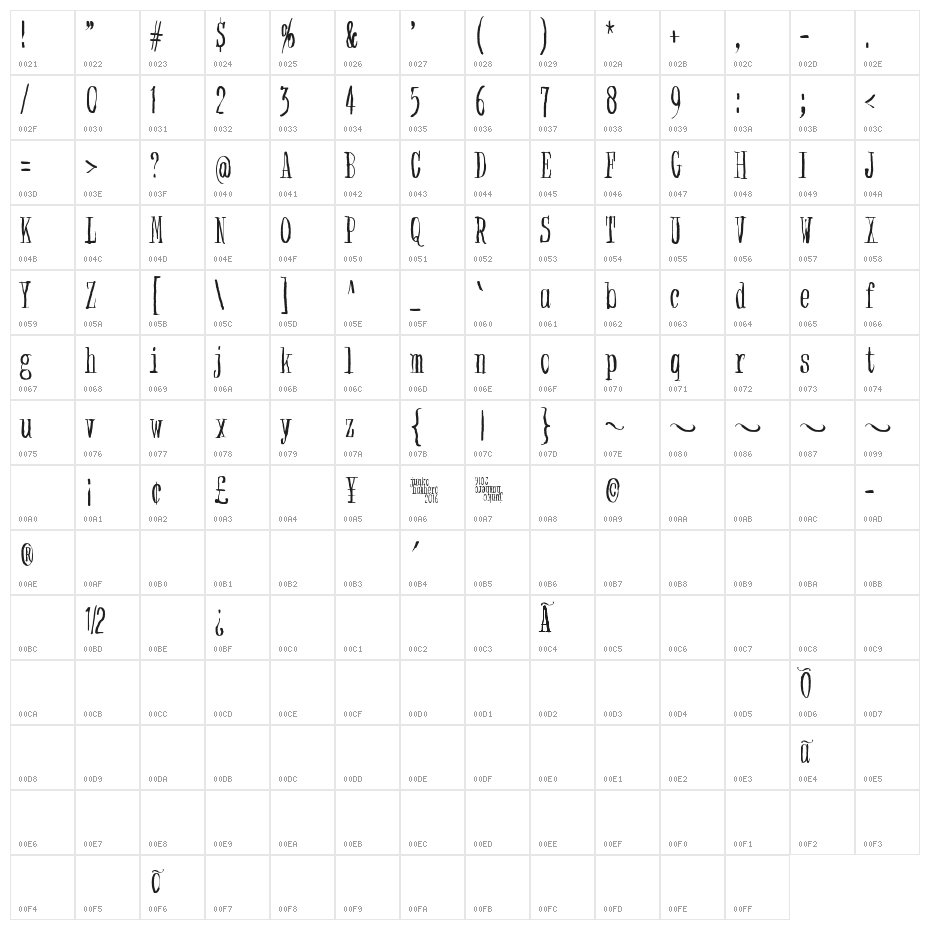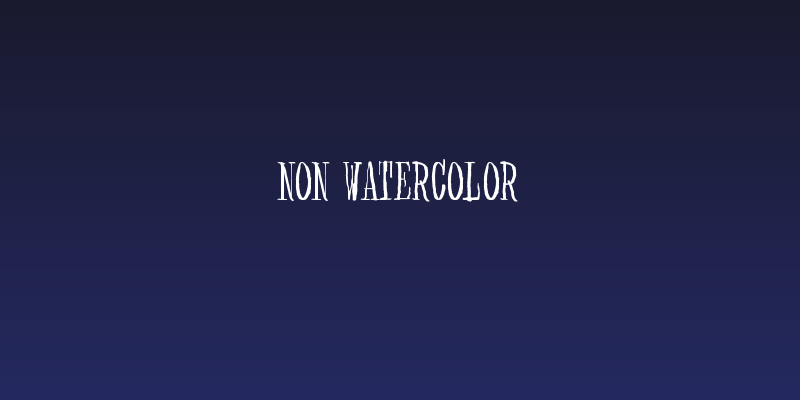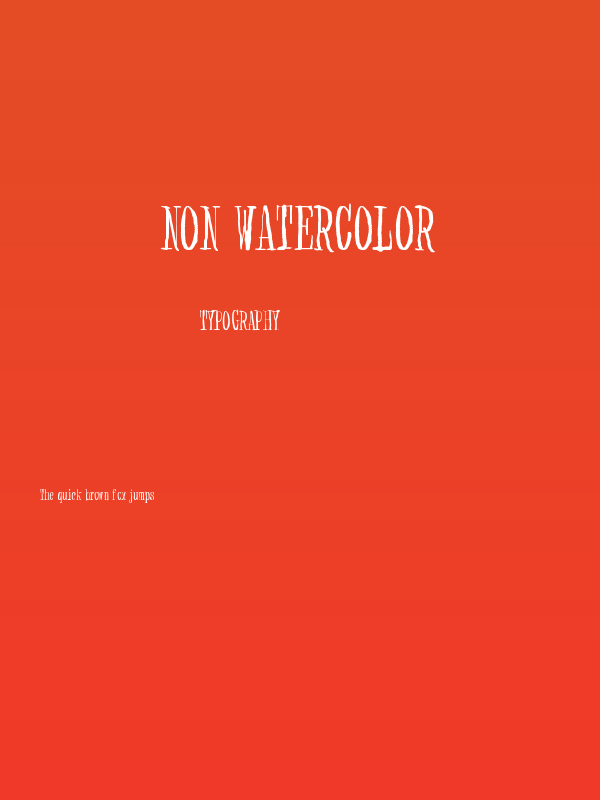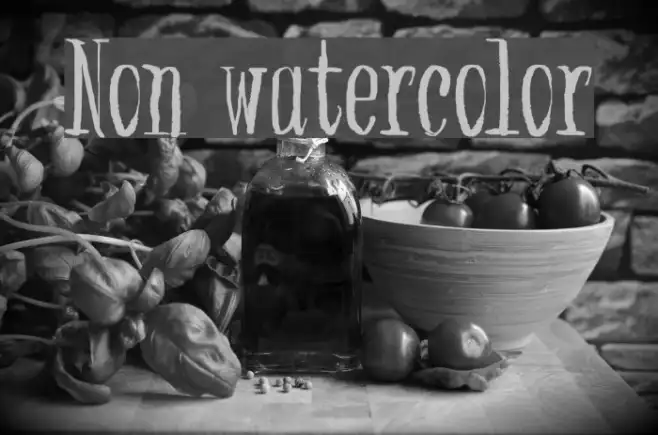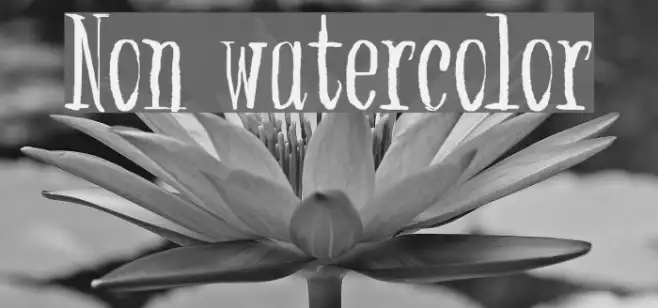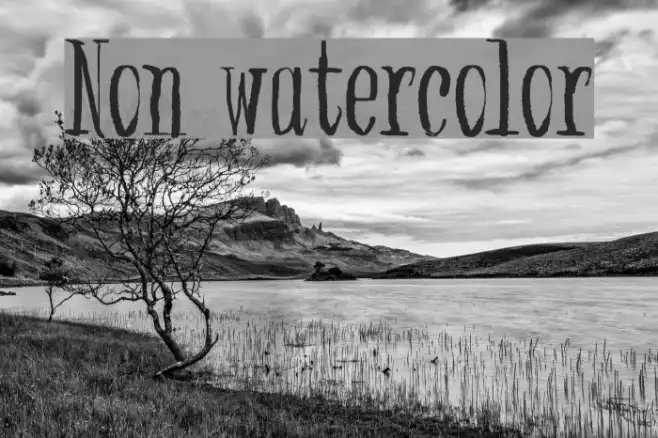
Non watercolor Font
Non watercolor Description
This font features a distinctive, hand-drawn appearance with uneven strokes and a slightly rough texture, giving it a rustic and organic feel. The uppercase letters are tall and narrow, while the lowercase letters maintain a consistent height with a playful, irregular baseline. The numbers and special characters follow the same style, adding to the font's cohesive look. The overall design is reminiscent of vintage signage or posters, making it suitable for projects that require a touch of nostalgia or a handcrafted aesthetic.